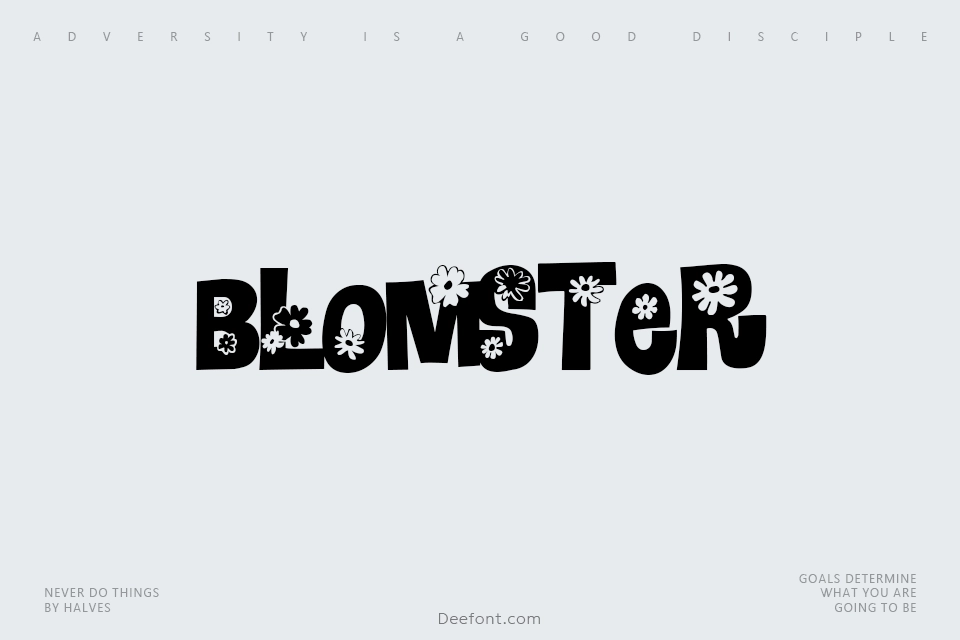
Blomster Font
Blomster is a decorative font that brings a bold, playful touch to creative designs. Its unique shapes and ornamental style make it perfect for eye-catching headings, branding, posters, or invitations. Designed to inspire creativity, Blomster adds a fresh, whimsical feel, making it ideal for anyone looking to give their project a standout personality. Free for personal use, it’s a great choice for hobbyists and creatives who want to elevate their visual storytelling with something special and stylish.